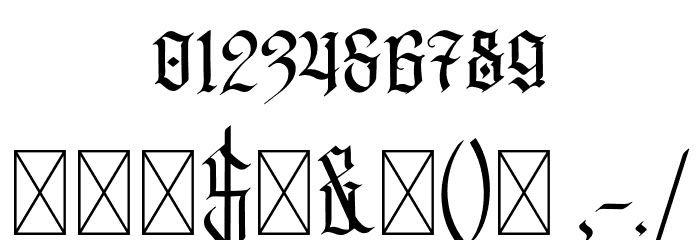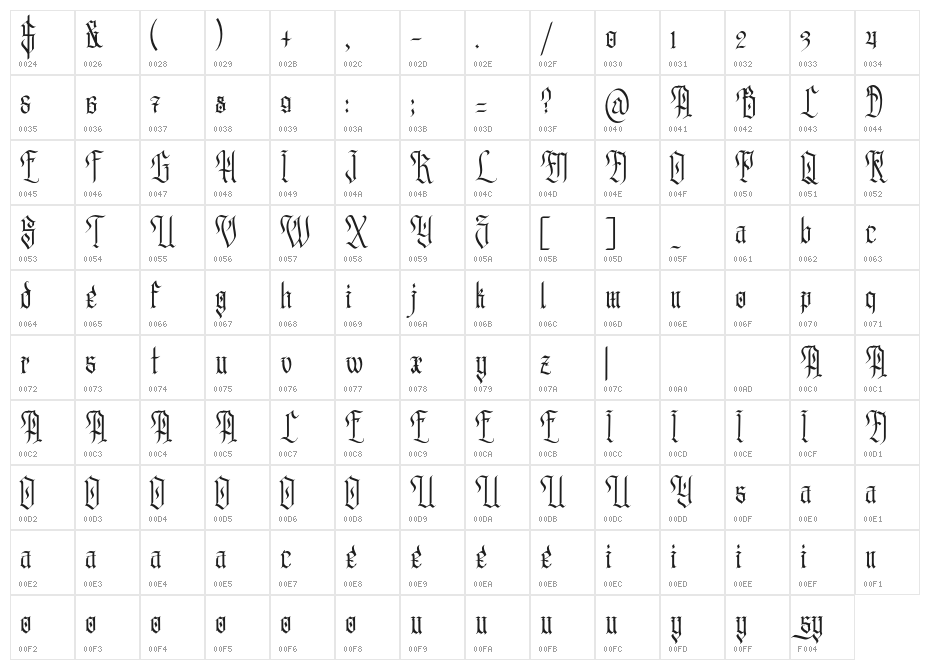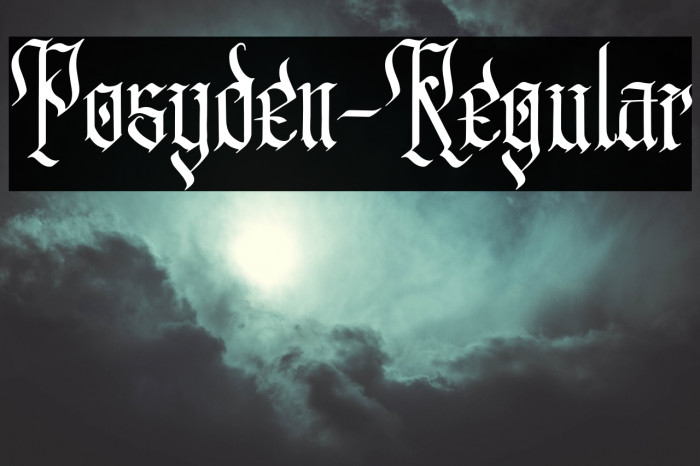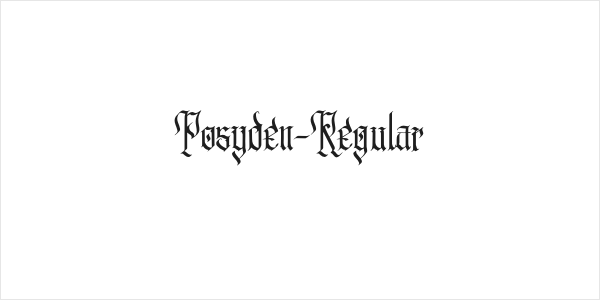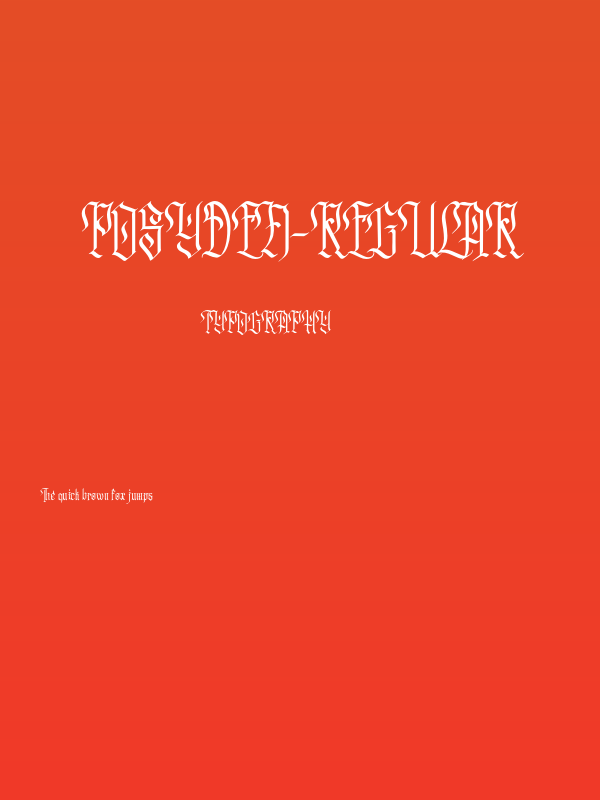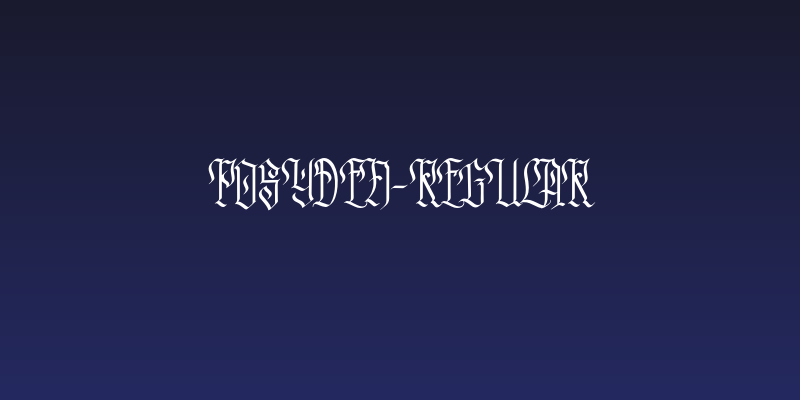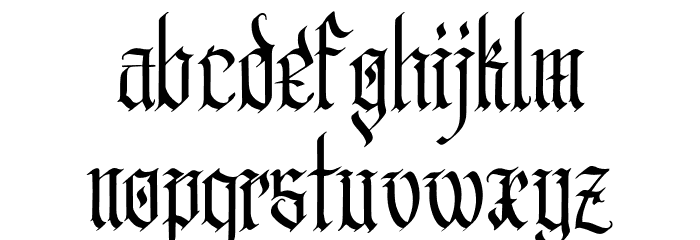
Posyden-Regular Font
Posyden-Regular Description
This font exhibits a classic blackletter style, characterized by its intricate and ornate letterforms. The uppercase letters are bold and dramatic, with sharp angles and elaborate strokes that give a sense of historical elegance. The lowercase letters maintain the same intricate detailing, providing a cohesive look throughout the typeface. The numbers are equally stylized, fitting seamlessly with the overall aesthetic. The special characters are designed to match the ornate style, ensuring consistency across all glyphs. This font is ideal for projects that require a touch of medieval or gothic flair, such as invitations, certificates, or branding for luxury products.
| Proposed Projects | Ideal for invitations, certificates, branding for luxury products, or any project needing a medieval or gothic touch. |